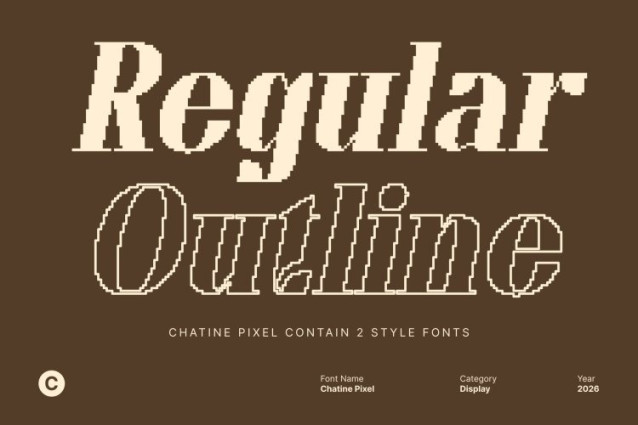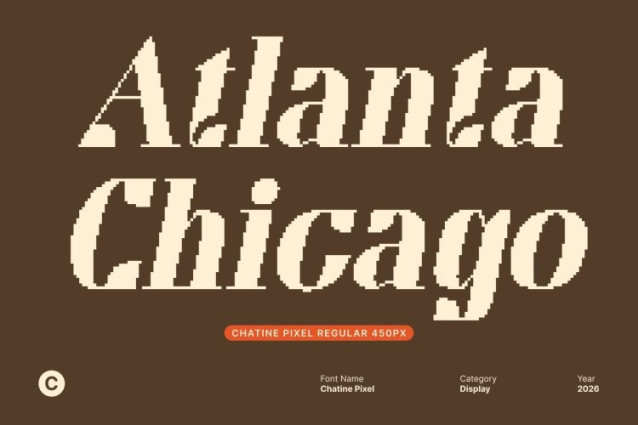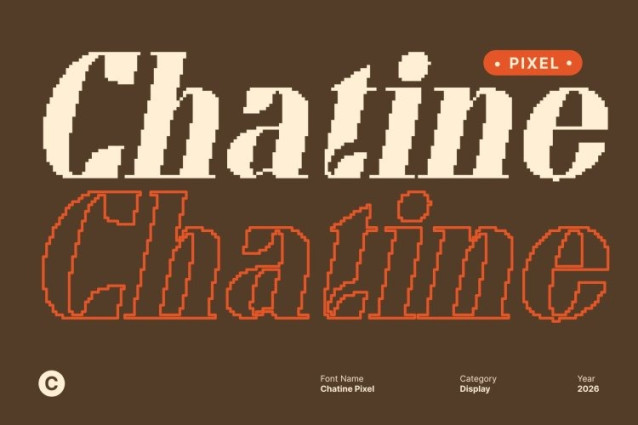
Chatine Pixel Font
Chatine Pixel Font This is a display serif font that revives retro elegance through timeless letterforms and a distinctive pixel-based structure. Inspired by classic typography, it features graceful curves and refined proportions, while its pixel construction introduces a subtle digital texture that enhances its nostalgic appeal.
Versatile and Classically Inspired
Designed for versatility, this font works beautifully across branding, packaging, editorial layouts, posters, signage, and invitations. Its retro style delivers charm and sophistication, allowing designers to create visuals that feel both familiar and distinctive.
Perfect for Classic and Vintage Designs
This is an excellent choice for projects that demand a classic, vintage-inspired aesthetic. Whether crafting a retro logo, a nostalgic poster, or elegant packaging, this typeface brings warmth and character while maintaining strong visual presence.
Enhanced Nostalgic Appeal
Rooted in nostalgia, evokes the charm of classic design eras while embracing modern digital sensibilities. Suitable for both print and digital media, it adds a refined vintage flair that resonates with audiences and elevates the overall aesthetic. This is ideal for designers seeking retro elegance with a contemporary pixel-art twist.